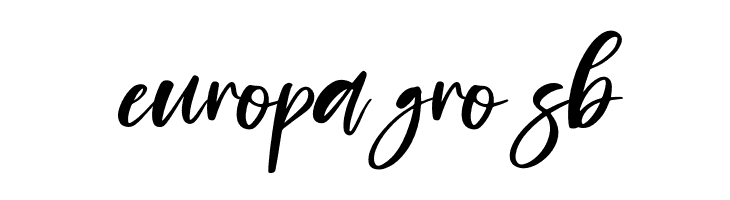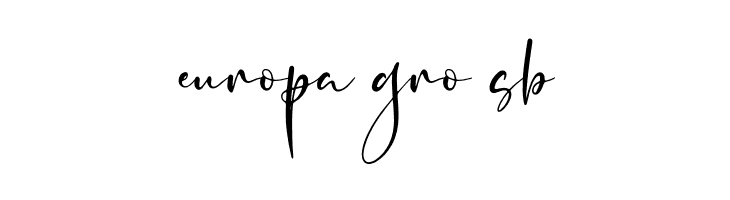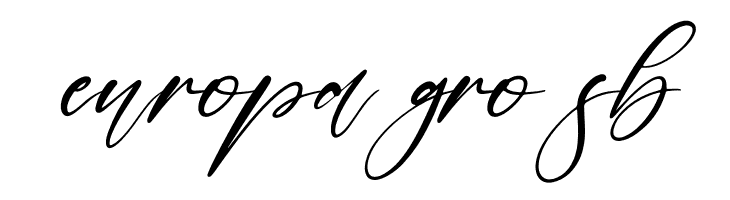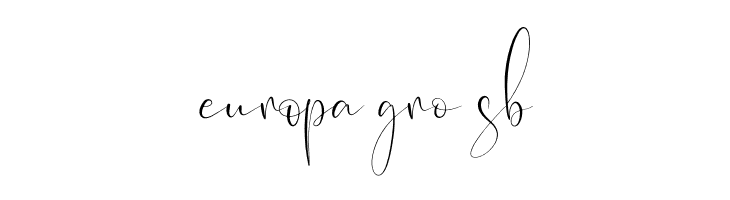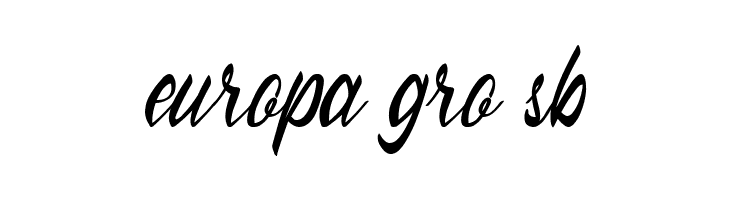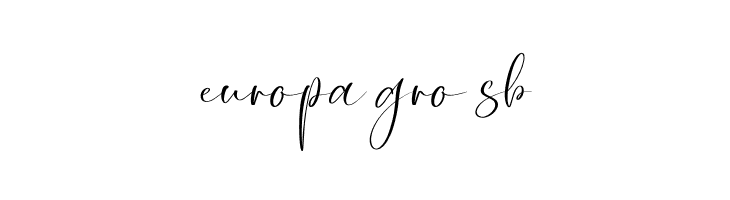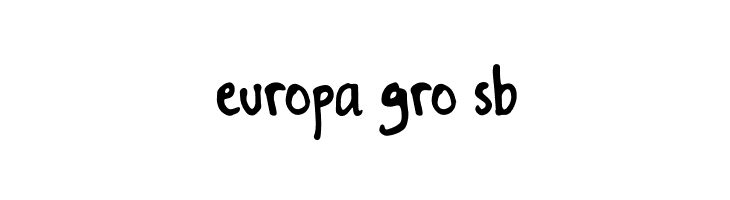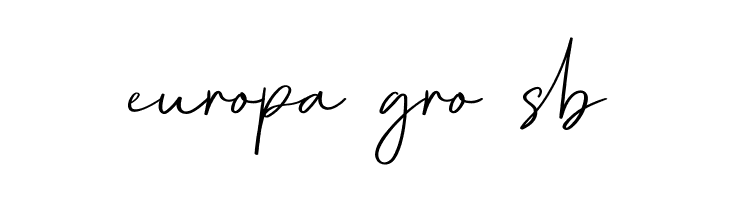
A bold, cursive font with a playful, handwritten style.
A modern, cursive font with elegant, flowing strokes and a handwritten appearance.
A sophisticated, flowing script font with elegant, interconnected strokes.
An elegant, cursive handwritten font with a fluid and italic style.
A whimsical, cursive script font with elegant loops and swirls.
A casual, handwritten font with fluid, connected characters and a personal touch.
A fluid and elegant script font with a handwritten style.
A graceful and elegant script font with flowing, interconnected letters.
A playful, handwritten font with medium contrast and casual style.
A flowing, handwritten font with elegant cursive characters.